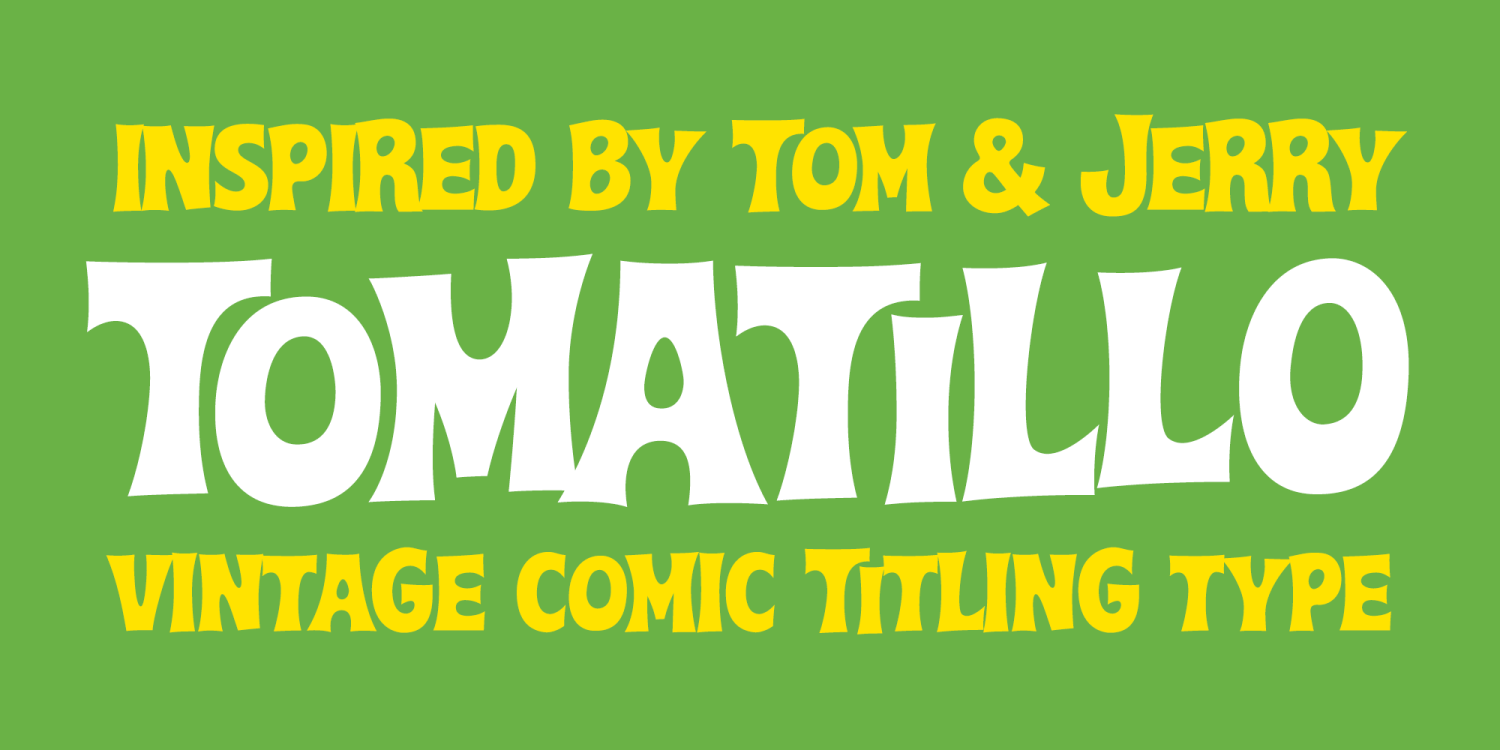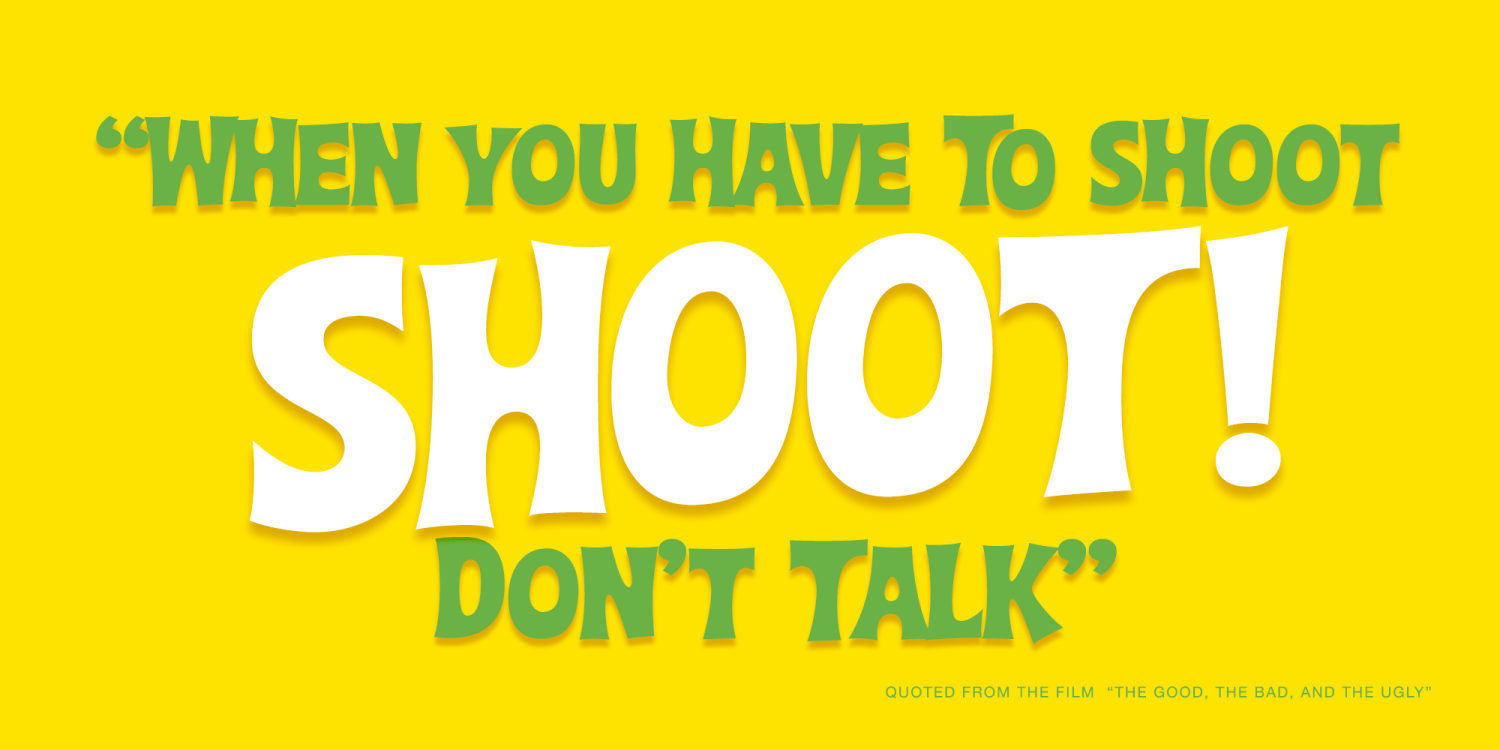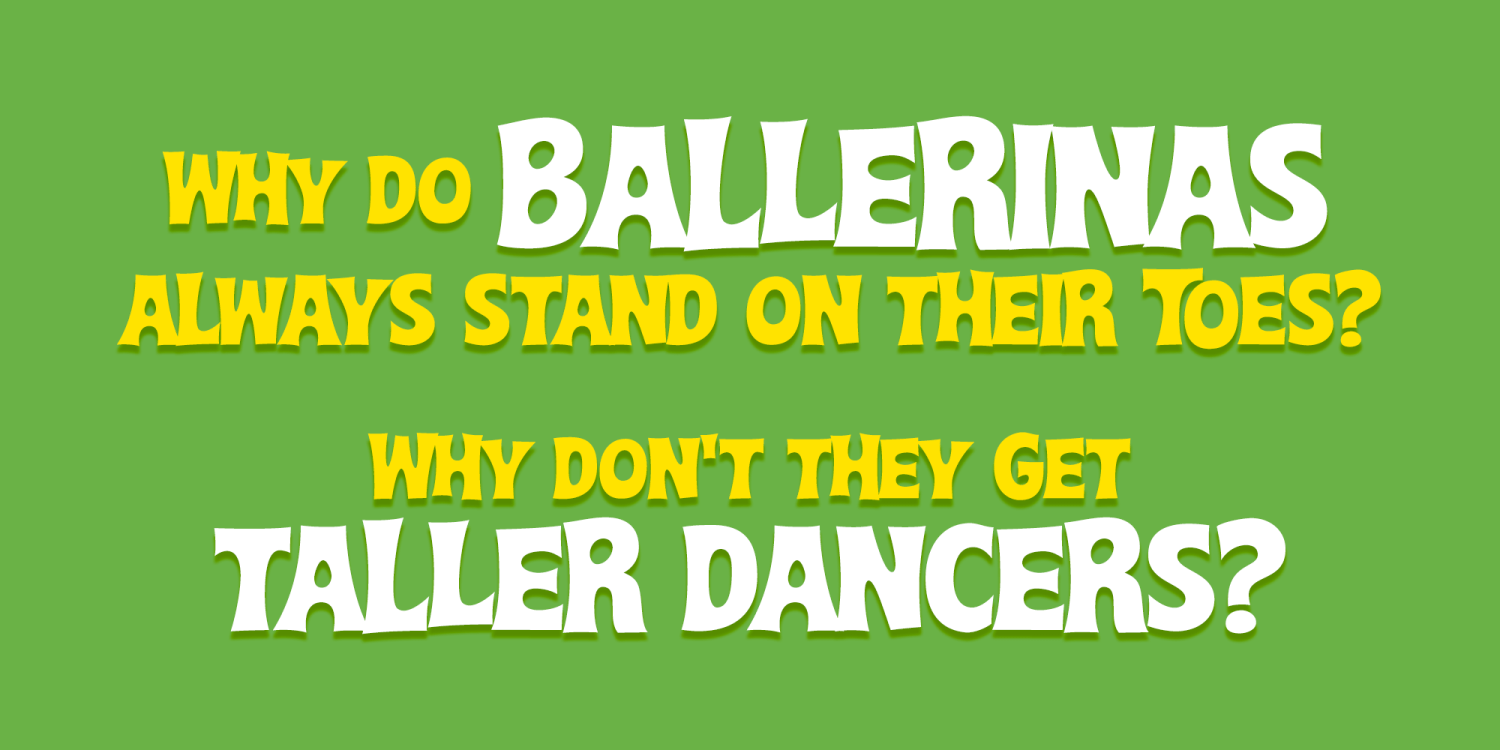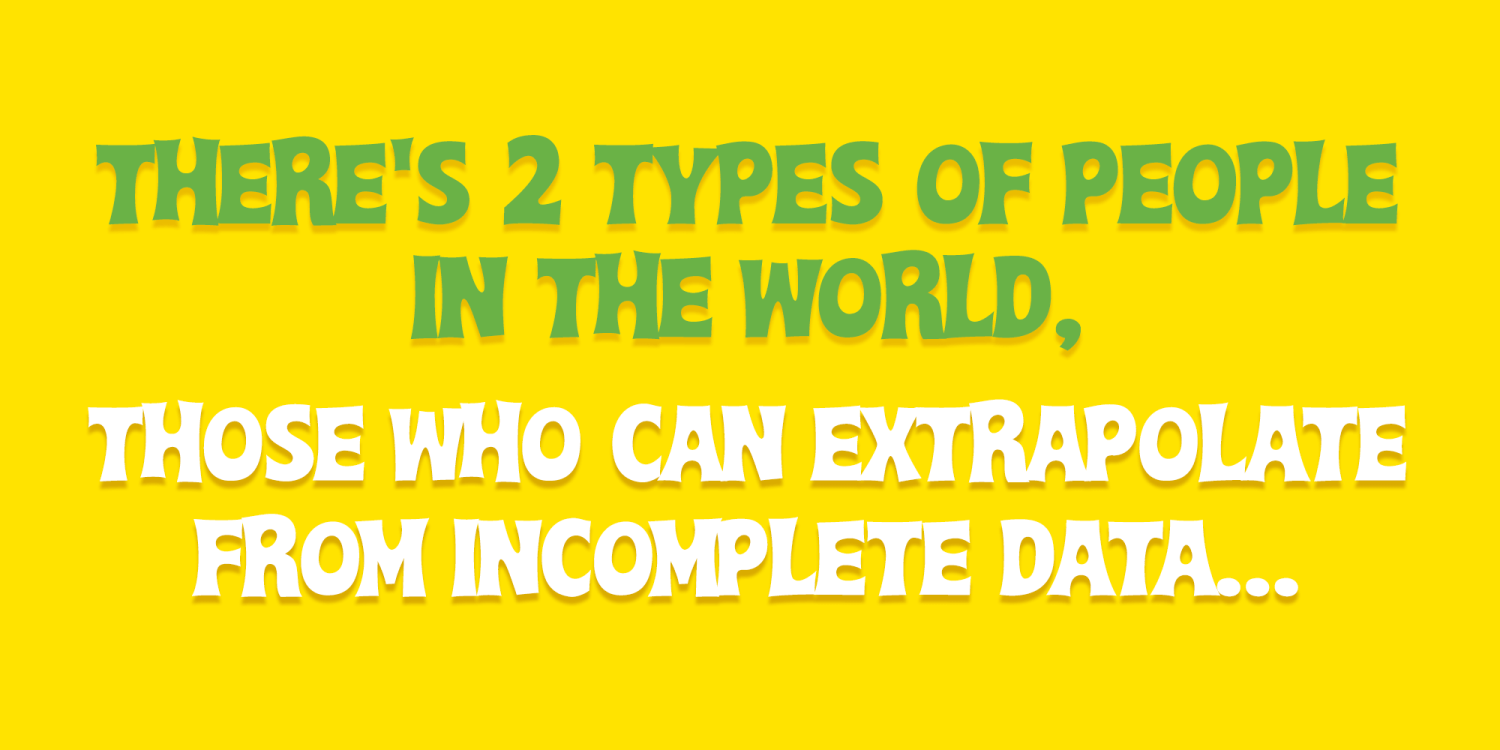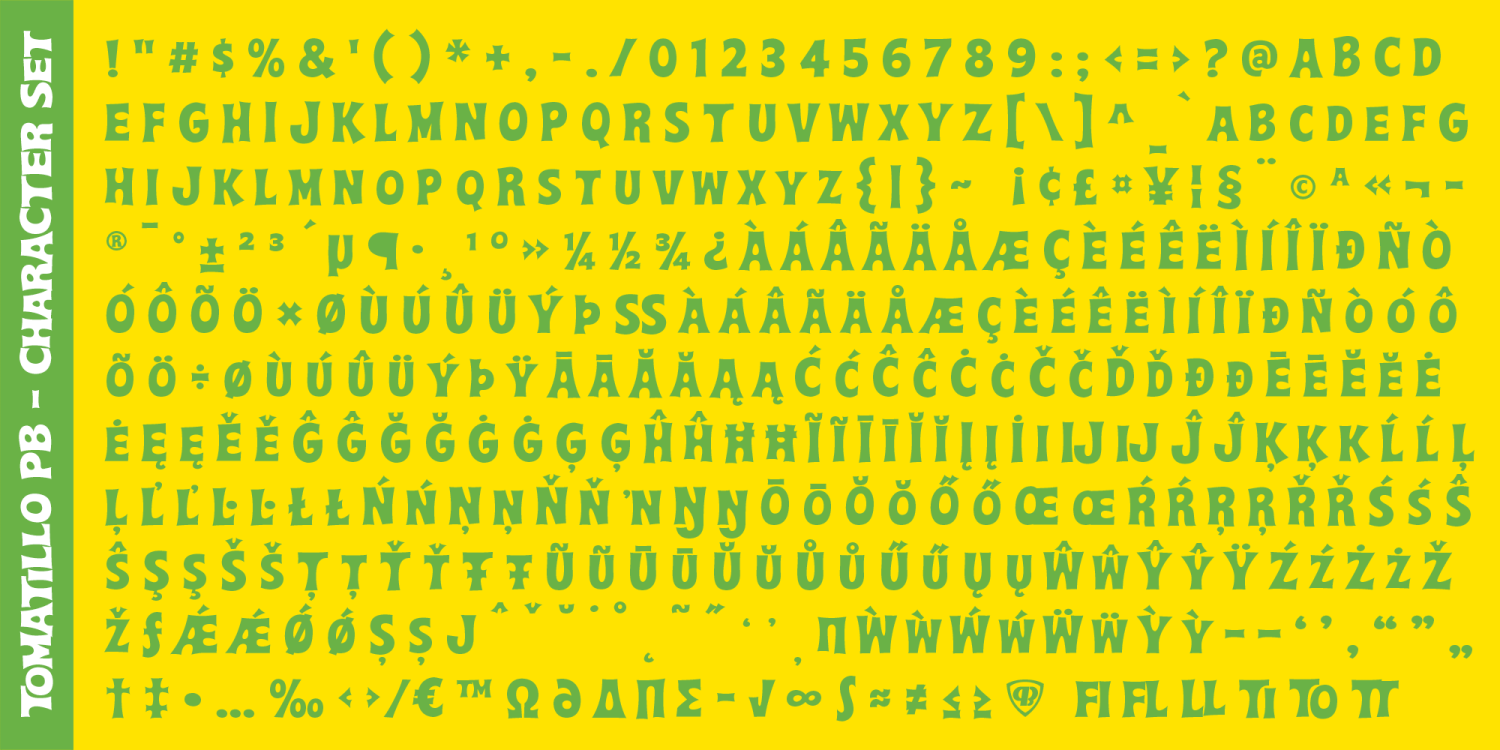
About Tomatillo PB
Tomatillo PB is a lively, offbeat typeface inspired by the hand-lettered charm of vintage Gold Key "Tom and Jerry" comics. With its subtle bounce and animated energy, it captures that classic cartoon spirit — playful, sassy, and full of motion.
Featuring alternate capitals in the lowercase positions for extra variety, Tomatillo PB tiptoes across the page with personality to spare. Perfect for fun-loving branding, nostalgic packaging, children’s titles, or anything that calls for a wink and a smile.
The Tomatillo PB font family includes 388 glyphs.